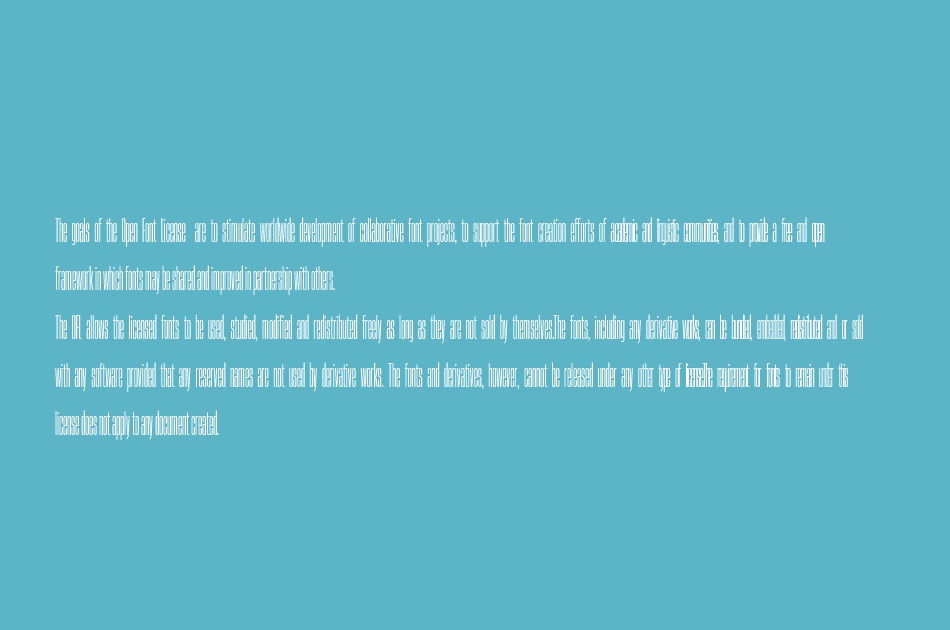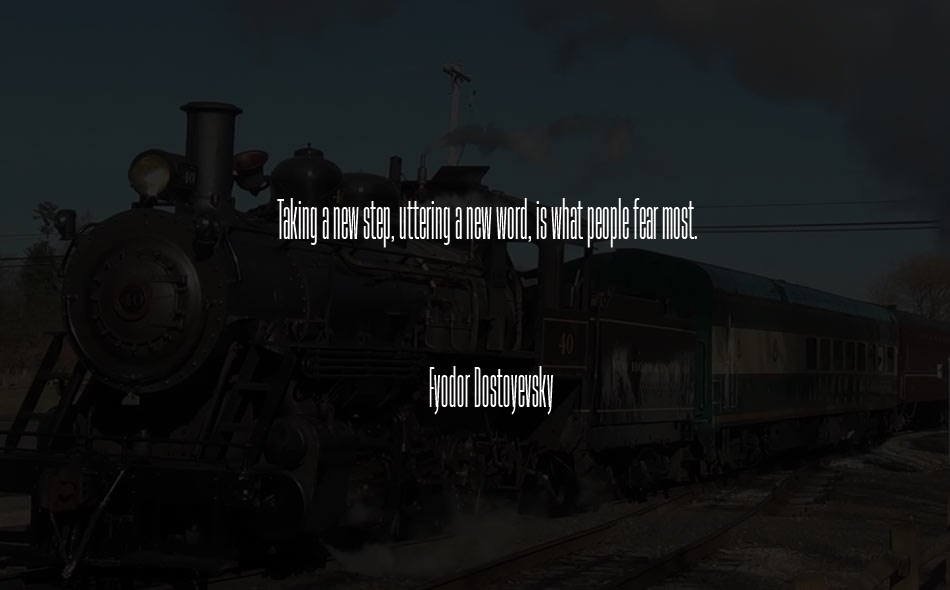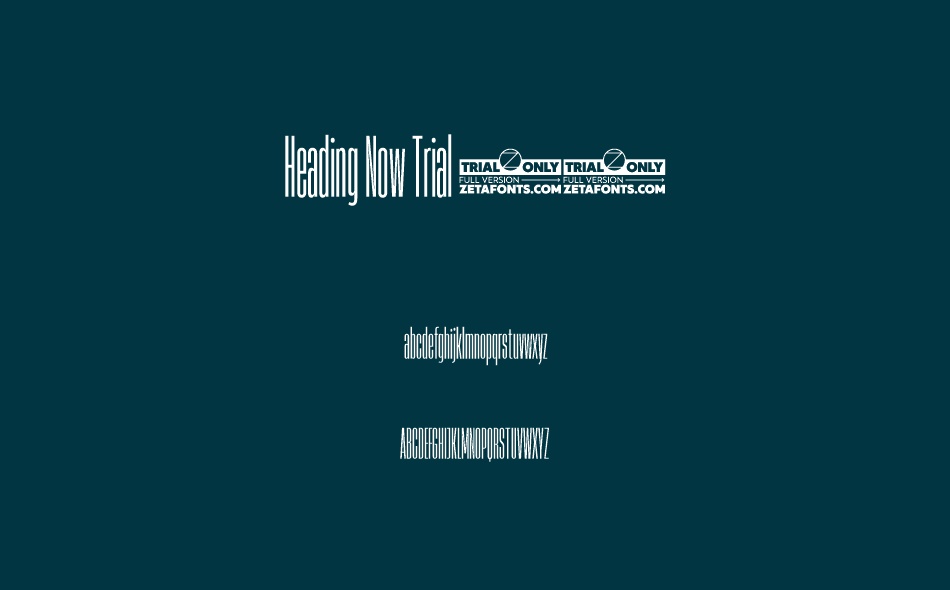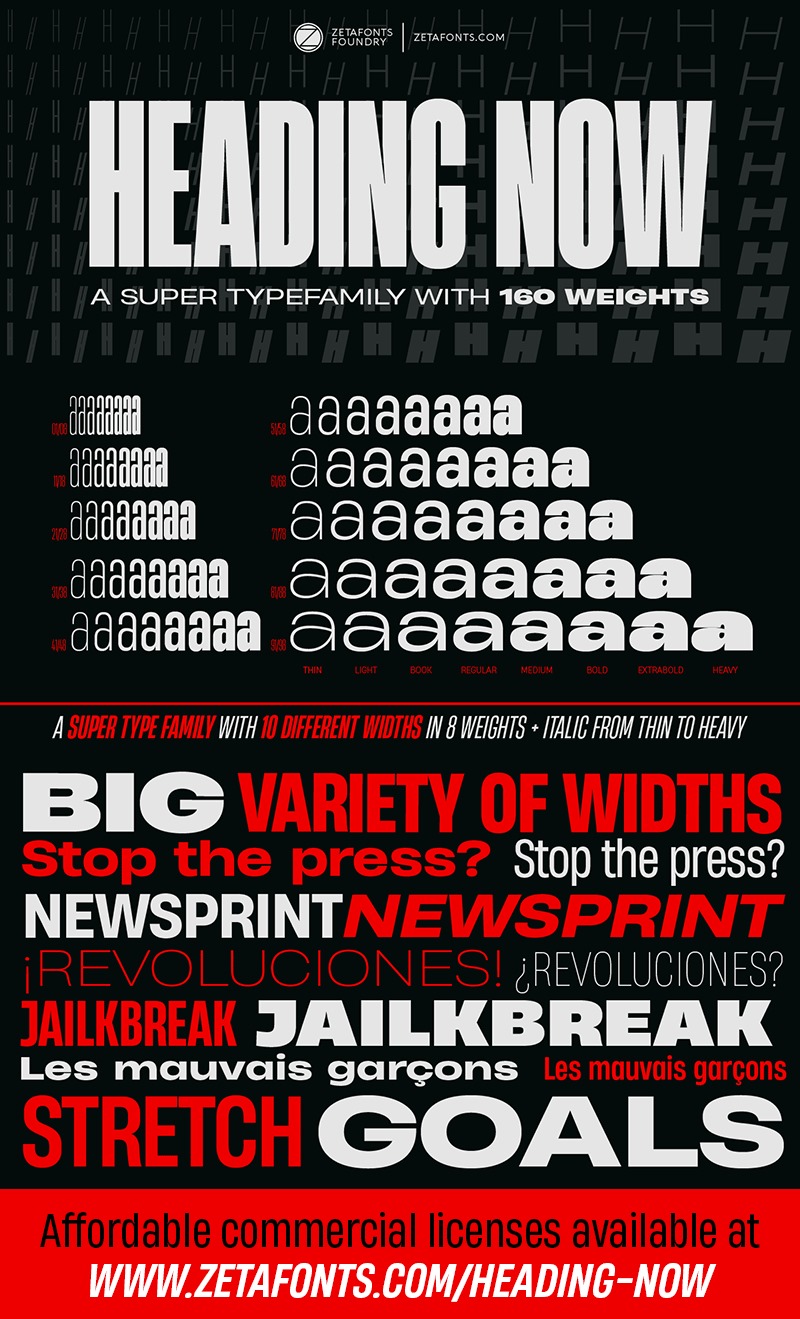
Heading Now font
Heading Now is the new incarnation of Heading Pro, developing the original typeface family designed by Francesco Canovaro for Zetafonts into a superfamily with 160 variant combinations. Built around 10 different widths, ranging from ultra-compressed to ultra-wide, and eight weights from thin to heavy, Heading Now provides a full spectrum of sans serif type solutions to your design problems.
Born as a space-optimizing typeface for headers and titles, Heading Now can be used in its compressed widths to manage space on the printed page and on the screen. In these widths Heading Now excels in titles and subheadings, timetables, infographics and in situations of exuberant and excessive copywriting. On the other side of the width spectrum, you can find extended width variants, ready to be used for titling where style and energy matter more than pixel or paper economy.